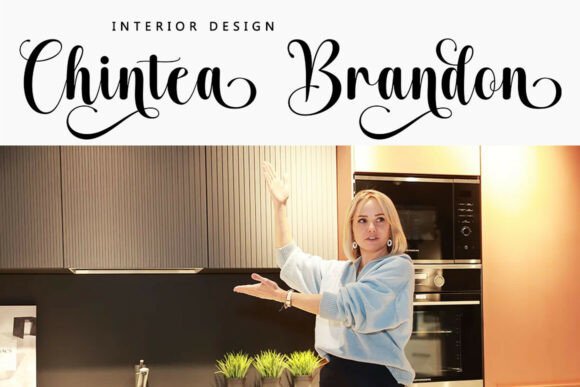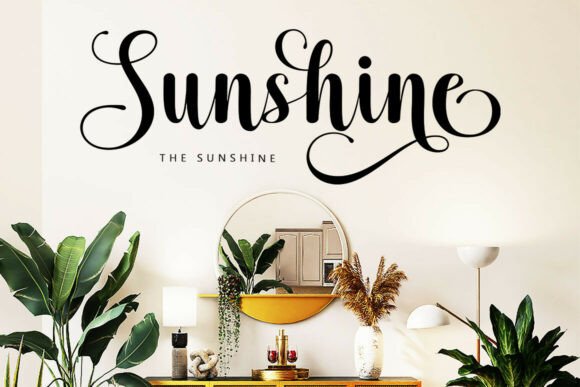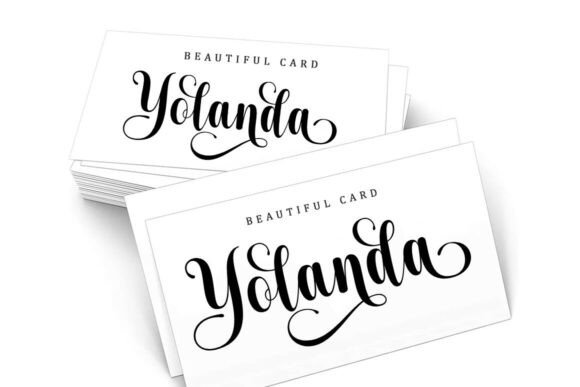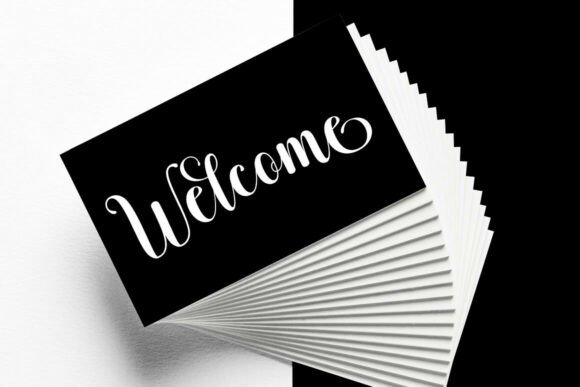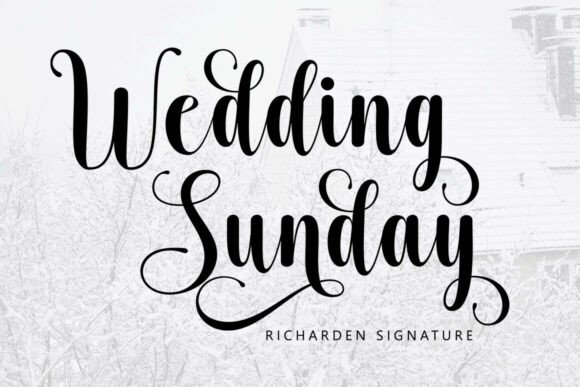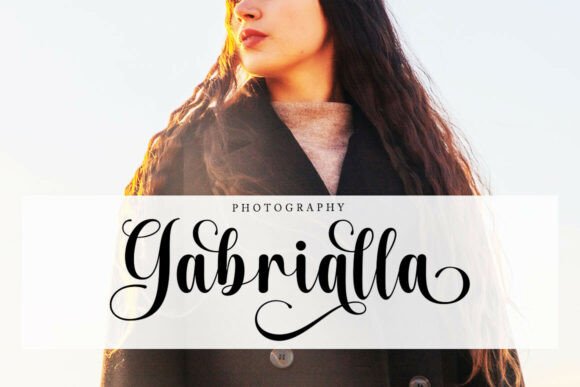
The Magical World of Disney Font: Elevate Your Designs with Elegance
Have you ever been in the middle of a design project, and suddenly, you just can’t seem to find the right font? I know I have! 😩 It was a few years ago when I was working on a wedding invitation project for a client. She wanted something elegant, sophisticated, and truly magical. As I scrolled through my font library, I stumbled upon the Disney font, and it was love at first sight! 💕
The Disney font is a beautiful, elegant, and high-quality script font that has become a true favorite in my design toolkit. Its sleek, clean, and feminine design makes it perfect for a wide range of creative projects, from formal invitations to fashion branding. In this article, I’ll share my honest review of the Disney font, provide a practical guide on how to use it, and explore some similar font alternatives.
An Honest Review of Disney Font
- ✅ Elegant and sophisticated design: The Disney font exudes luxury and glamour, making it perfect for high-end branding and formal applications.
- ✅ PUA-encoded for easy access: The font is PUA-encoded, which means you can easily access all the glyphs and strokes, making it a breeze to work with.
- ✅ Highly readable: The font’s clean and simple design makes it highly readable, even at smaller font sizes.
- ✅ Multilingual support: The Disney font comes with multilingual support, making it a great choice for global brands or projects.
- 🤔 Occasional kerning issues: Like any font, the Disney font may require some manual kerning adjustments to ensure optimal spacing.
- 🤔 Not suitable for body text: While the Disney font is highly readable, it’s not designed for body text. It’s best used for headlines, titles, or short paragraphs.
The Backstory of Disney Font
The Disney font was designed with the goal of creating a beautiful, elegant, and highly readable script font that would be perfect for a wide range of creative applications. Inspired by the magic of Disney, the font’s designer aimed to create a font that would evoke a sense of luxury, sophistication, and glamour.
Q: What is the Disney font?
A: The Disney font is a beautiful, elegant, and high-quality script font designed for creative applications.
Q: Is the Disney font PUA-encoded?
A: Yes, the Disney font is PUA-encoded, making it easy to access all the glyphs and strokes.
Q: Does the Disney font come with multilingual support?
A: Yes, the Disney font comes with multilingual support, making it a great choice for global brands or projects.